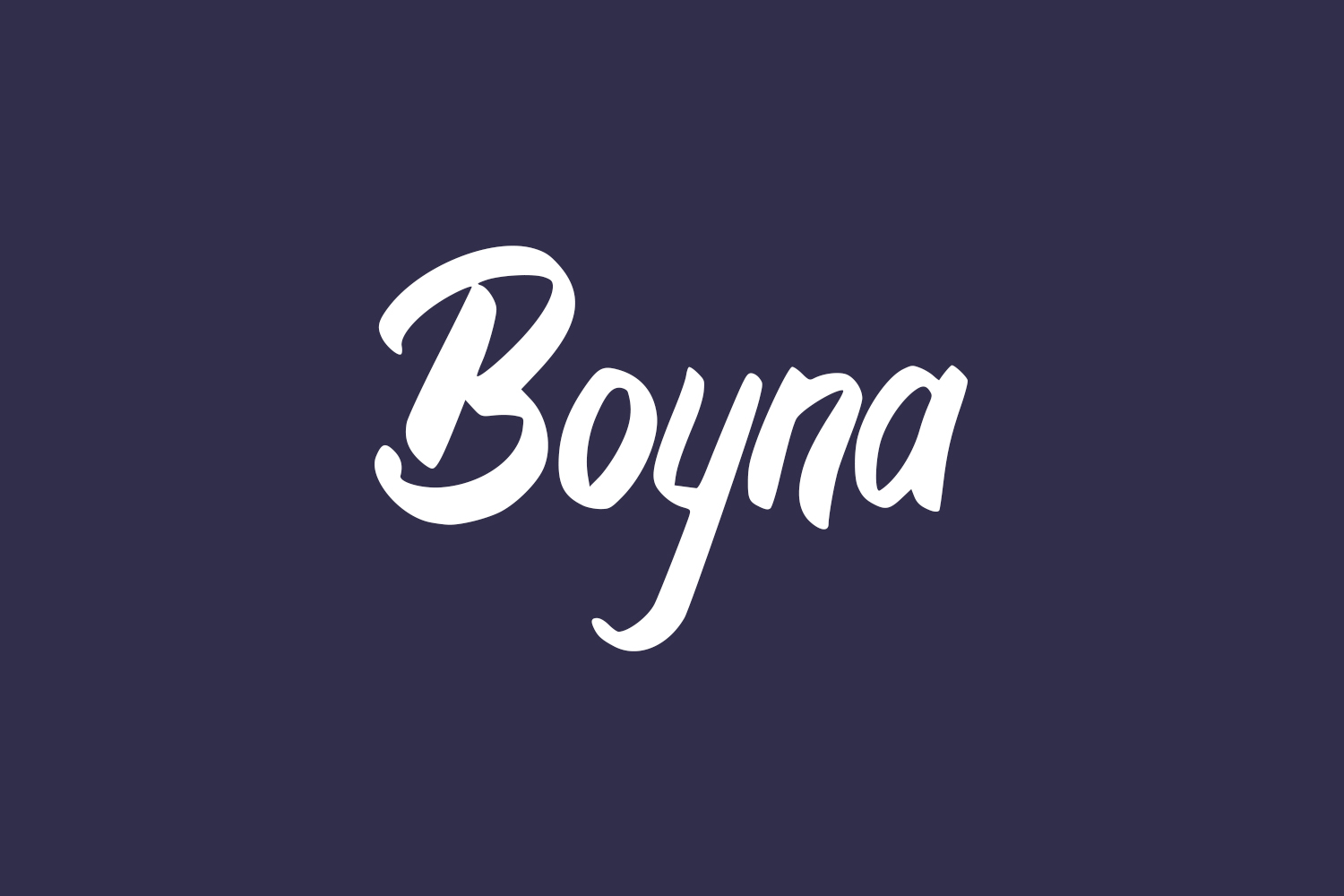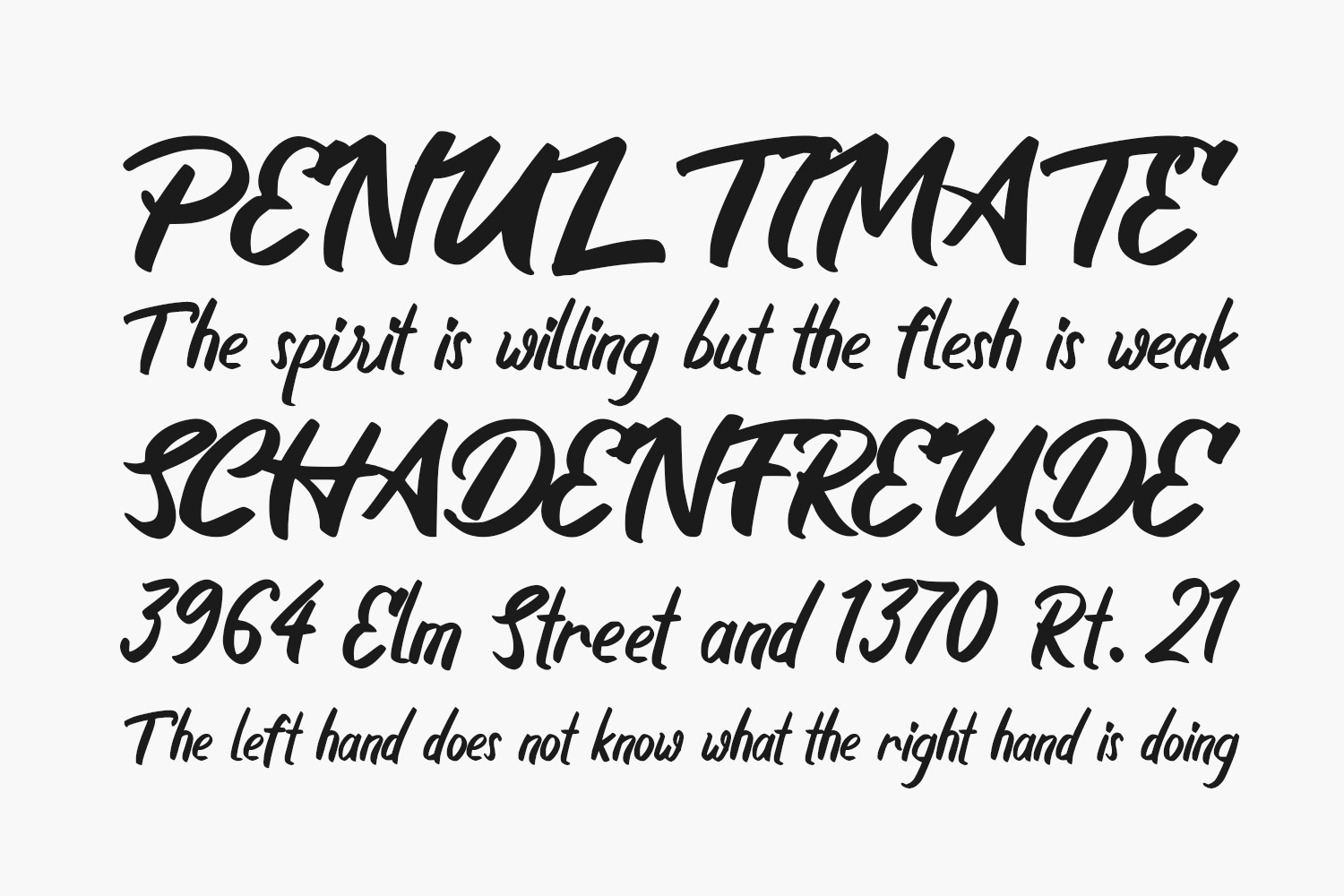
Boyna Free Font is a strong and bold script font. It is curved, rounded, and has a unique vintage style that is perfect for branding. Add it to your most creative ideas, and notice how it makes them come alive. Boyna Free Font was designed by StringLabs and is free for personal use only. Please purchase the full version for commercial use.